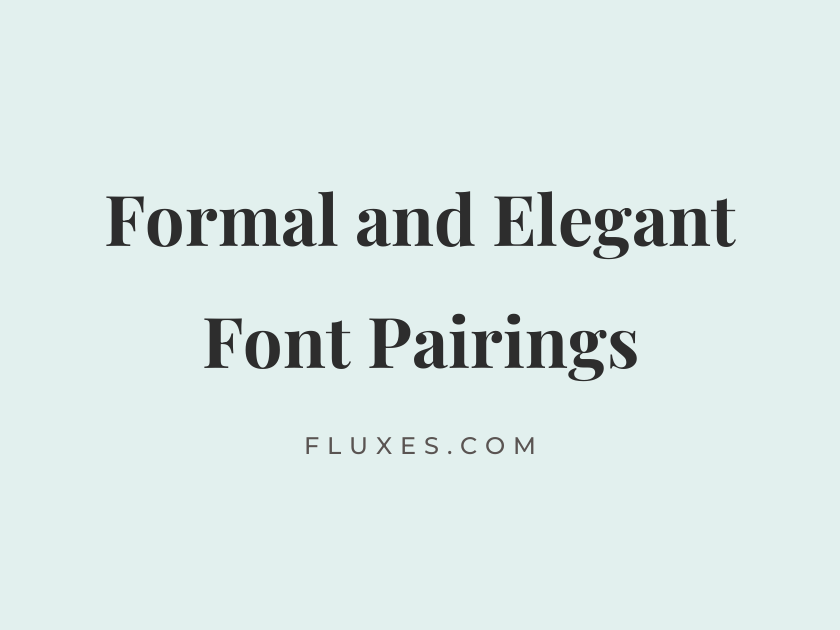
10 Formal and Elegant Font Pairings
Formal and elegant typography relies on restraint: generous spacing, refined proportions, and a serif or display face that carries just enough personality without shouting. The pairings below balance a distinguished heading font with a body face chosen for compatible x-height and a calm reading rhythm, the kind of combination suited to invitations, law firms, bridal branding, and editorial work that wants to feel considered rather than trendy.
1. Playfair Display + Lora
An Invitation to Celebrate
Please join us for an evening of dinner and dancing in honor of the occasion.
Playfair Display’s high-contrast strokes and sharp serifs give headlines a couture feel, while Lora’s moderate contrast and calligraphic roots keep paragraphs warm and readable underneath. Both fonts share a similar formal register without competing for attention, which is why this duo shows up so often in wedding stationery and upscale editorial layouts.
2. Cormorant Garamond + EB Garamond
Timeless Grace, Modern Voice
A garamond-based body copy lends historical authority to any formal document.
Pairing two Garamond revivals might seem redundant, but Cormorant Garamond’s elongated, jewelry-like proportions at display size contrast nicely with the sturdier, more legible EB Garamond at text sizes. This is a strong choice for literary journals, fine dining menus, or any brand leaning on old-world credibility.
3. Libre Baskerville + Open Sans
A Legacy Worth Reading
Clean, neutral sans serif text supports the gravity of a classic serif headline.
Libre Baskerville was drawn specifically for screen legibility, so its heading weight reads crisply at large sizes without losing the warmth of the original Baskerville. Open Sans underneath offers a quiet, well-mannered sans that lets the heading remain the star, a dependable formula for law firms, financial services, and academic publishing.
4. Prata + Karla
Refined Details, Lasting Impression
A geometric grotesque keeps supporting paragraphs tidy and unobtrusive.
Prata’s thin, high-waisted serifs give it a jewelry-store polish that suits luxury branding, and Karla’s understated geometry provides a modern counterweight so the pairing doesn’t feel purely antique. It works well for boutique hotels, perfume packaging, or any identity that wants elegance with a contemporary edge.
5. Marcellus + Nunito Sans
Understated Sophistication Awaits
Rounded, humanist letterforms bring approachability to a formal composition.
Marcellus carries a restrained, classical calm that never tips into decoration, making it ideal for headlines that need to feel dignified rather than loud. Nunito Sans, with its soft curves and generous spacing, keeps body text friendly and easy to scan, a useful balance for spas, galleries, and lifestyle brands aiming for formal but not stiff.
6. Cinzel + Crimson Pro
Inscribed in Stone and Time
A book-style serif text complements the monumental feel of the heading above.
Cinzel draws directly from Roman inscriptional capitals, so it carries ceremony and gravity that few display fonts can match. Crimson Pro, built for long-form reading, tempers that monumentality with a more human, book-like texture underneath, a combination well suited to academic ceremonies, certificates, and heritage branding.
7. Bodoni Moda + Work Sans
High Fashion, High Contrast
A straightforward grotesque grounds the drama of a Didone display face.
Bodoni Moda’s dramatic thick and thin strokes are the definition of editorial elegance, but that intensity needs a plain, confident partner at smaller sizes. Work Sans does exactly that, staying out of the way so the headline retains its runway presence, a pairing frequently seen in fashion magazines and beauty branding.
8. Fraunces + Public Sans
Warm, Literary, and Considered
A civic, neutral sans serif provides clarity beneath an expressive display face.
Fraunces has a soft, buttery quality with old-style details that feel both formal and slightly artisanal, which makes it popular for editorial and food branding. Public Sans, designed for clarity in official contexts, offers a plain-spoken foil that keeps longer passages legible without diluting the character of the headline.
9. Spectral + Mulish
Precision Meets Old-World Charm
A low-contrast sans serif offers calm, modern support to a literary heading.
Spectral was designed for on-screen reading first, so it already has a formal but approachable rhythm at display sizes. Mulish, with its restrained curves and even weight, extends that calm into body copy, making this pairing a solid option for law offices, publishers, and formal digital reports.
Tips for pairing formal fonts
Limit display serifs like Bodoni Moda, Cinzel, or Italiana to headlines and short lines; their contrast and spacing were not built for paragraphs.
Match the mood before matching the era: a Roman inscriptional face like Cinzel wants a body font with similar gravity, not a playful rounded sans.
When in doubt, choose a body font from the same type designer or superfamily as the heading; shared DNA almost always reads as intentional elegance.